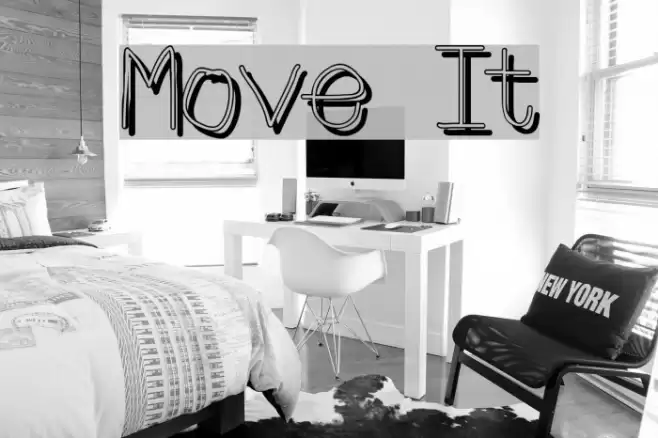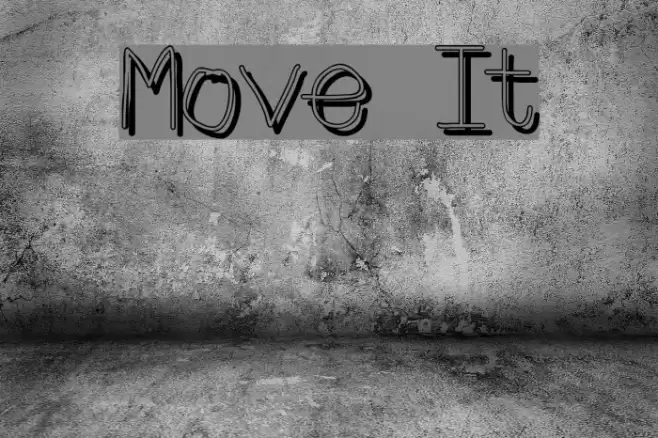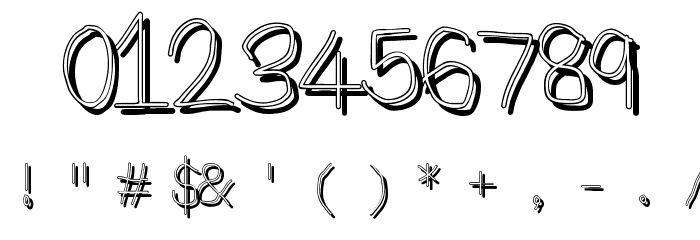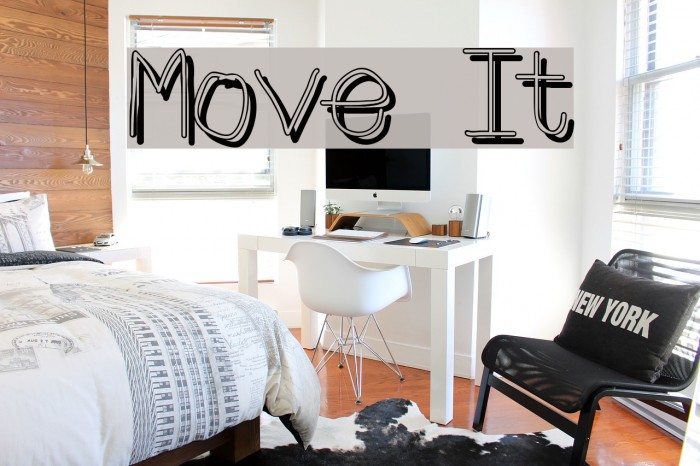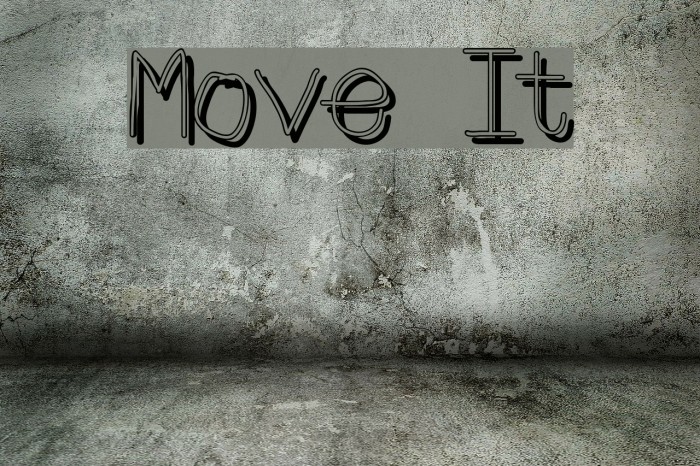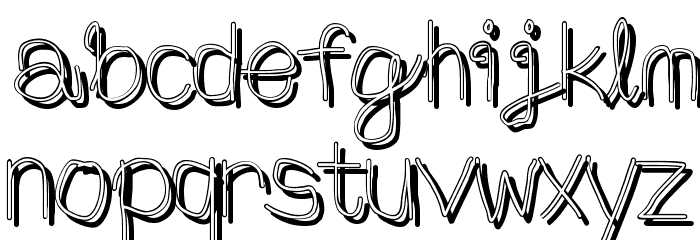
Move It Font
Move It Description
This playful and energetic font features a unique hand-drawn style with a double-line effect that adds depth and character. The uppercase and lowercase letters are slightly irregular, giving it a casual and informal appearance. The numbers and special characters maintain the same lively aesthetic, making it versatile for creative projects. The strokes are consistent in width, providing a balanced look despite the font's whimsical nature. This font is perfect for projects that require a fun and approachable feel, such as children's books, playful branding, or casual invitations.
A playful, hand-drawn font with a double-line effect and casual style from Uncategorized fonts.
- Proposed Projects: Ideal for children's books, playful branding, casual invitations, and creative posters.
- Overall Style: Playful, Casual, Hand-drawn